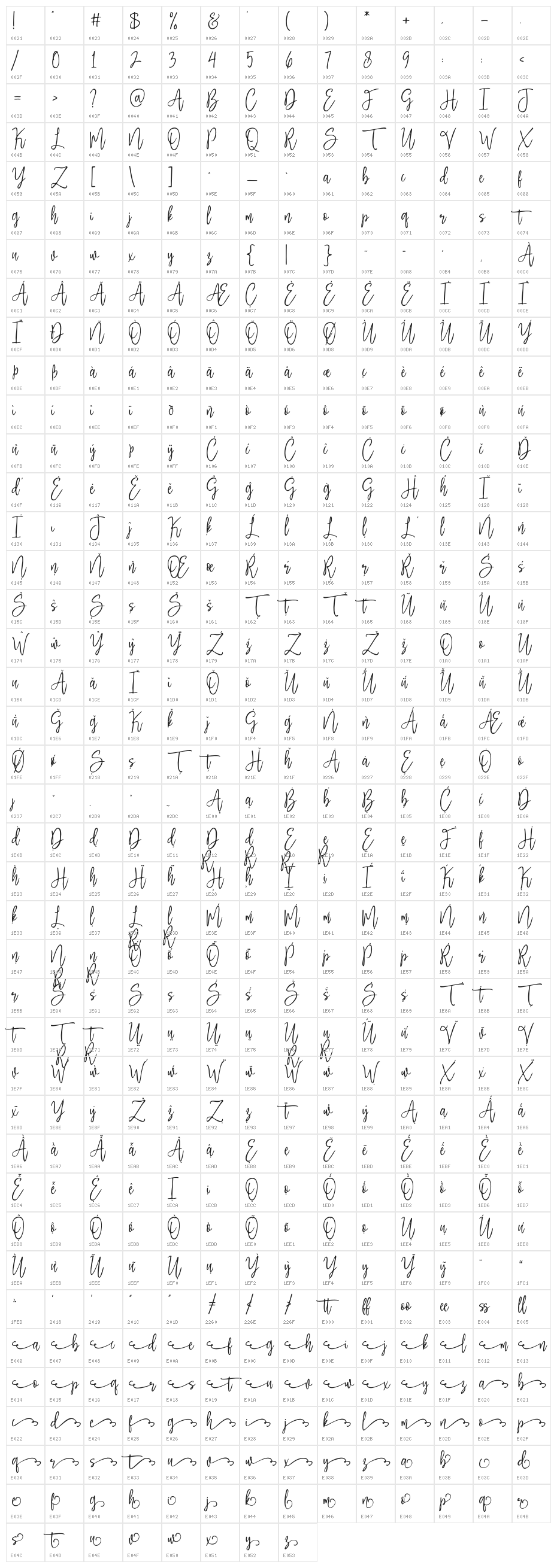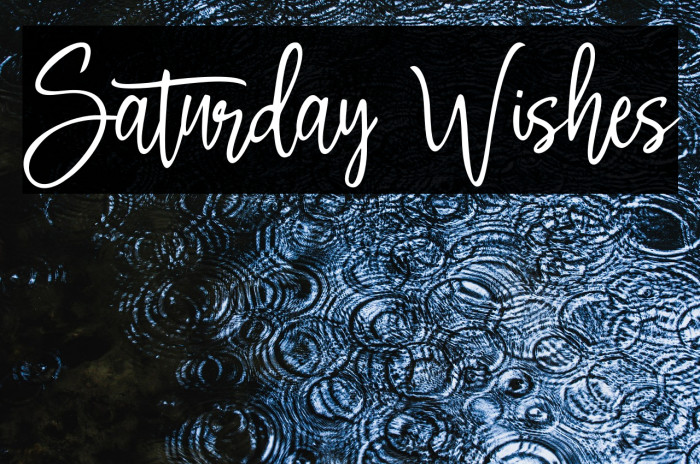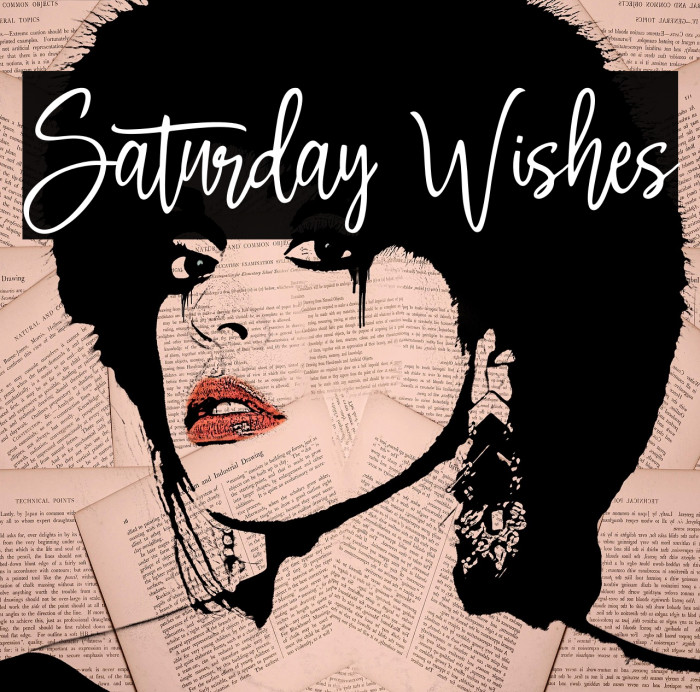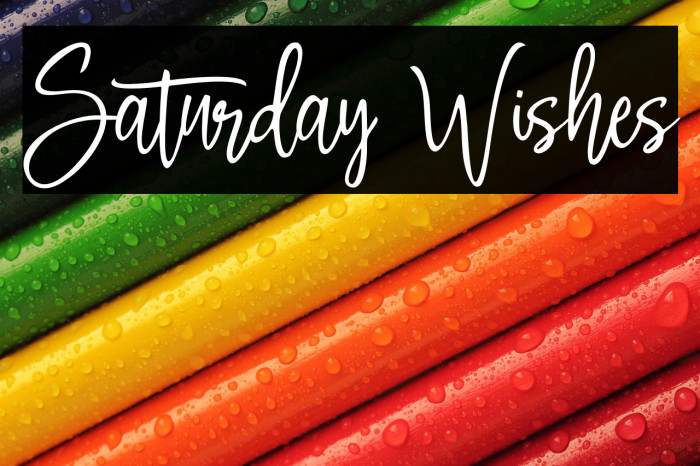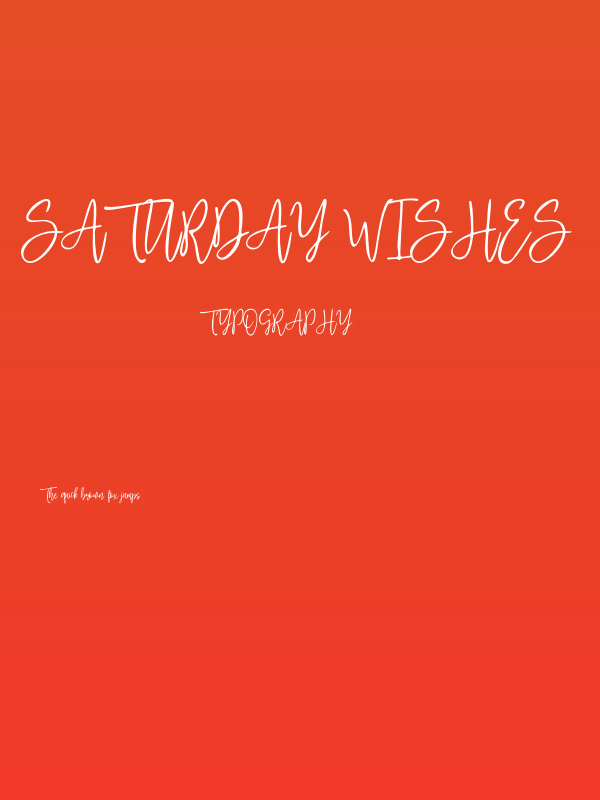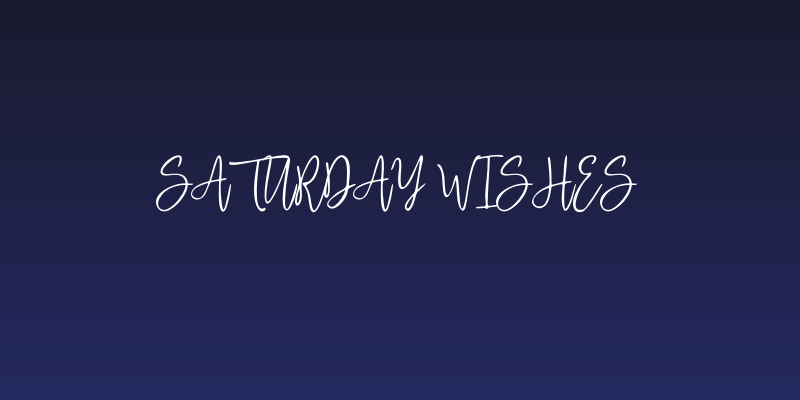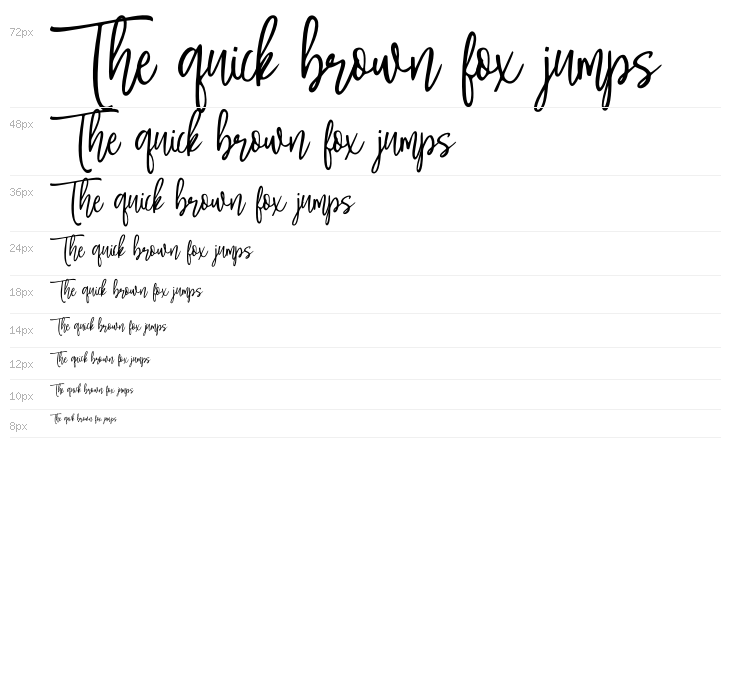
Saturday Wishes Font
Saturday Wishes Description
This font features a playful and casual handwritten style, characterized by its flowing and connected letterforms. The uppercase letters are bold and expressive, with a slight slant that adds a dynamic feel. The lowercase letters maintain a consistent style, with some characters featuring unique loops and flourishes that enhance the font's whimsical nature. Numbers and special characters are crafted to match the overall aesthetic, providing a cohesive look. The font's informal and friendly appearance makes it suitable for a variety of creative projects.